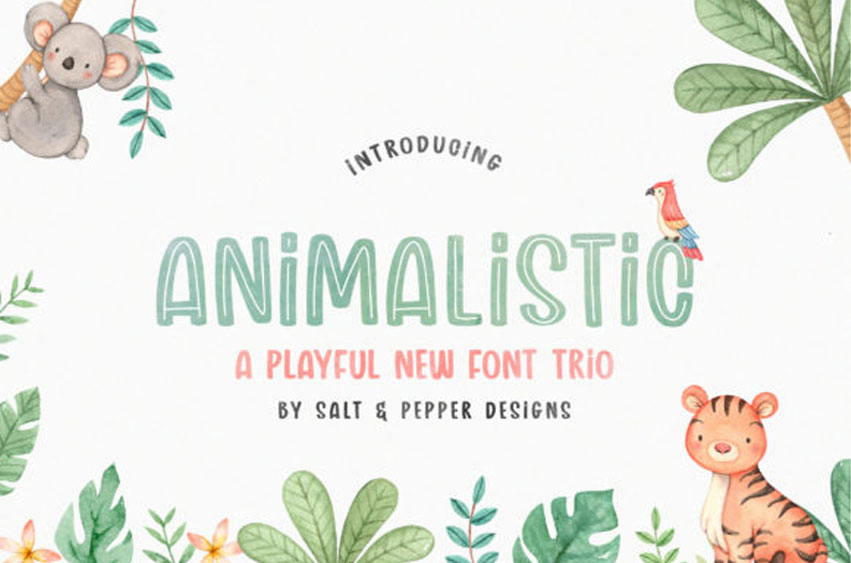
Animalistic Trio Font
Animalistic Trio Font is a childish, easy-to-read display font that conveys impeccable friendliness.
Whether you’re using it for crafts, digital design, presentations, or making greeting cards, this font has the potential to become your favorite go-to font, no matter the occasion!